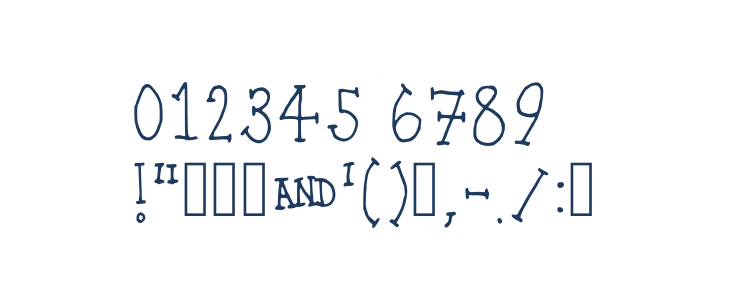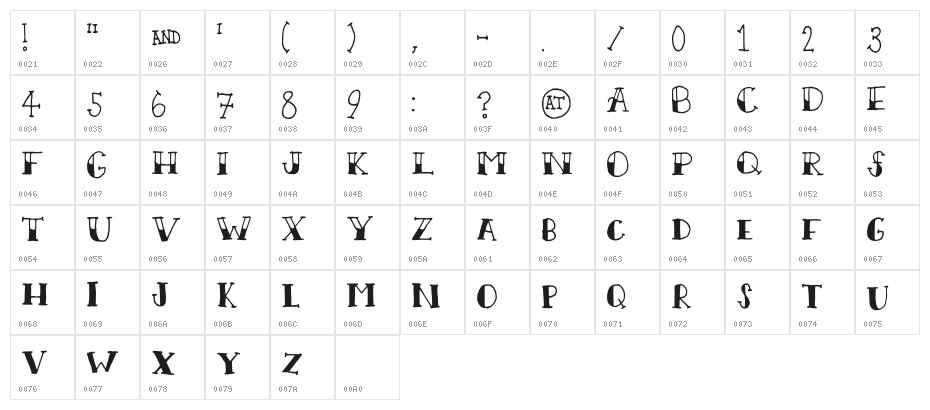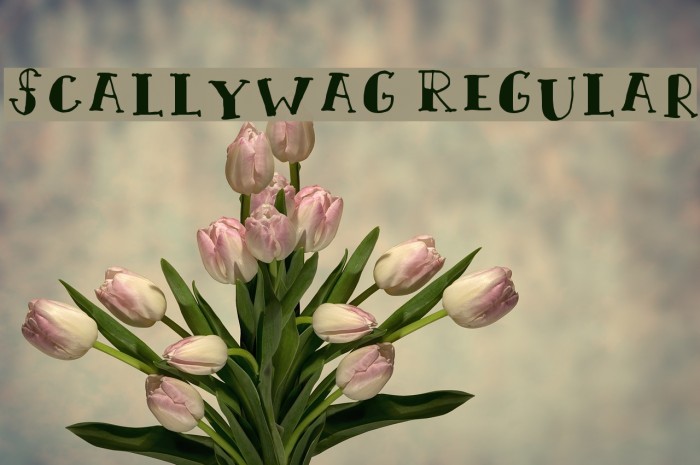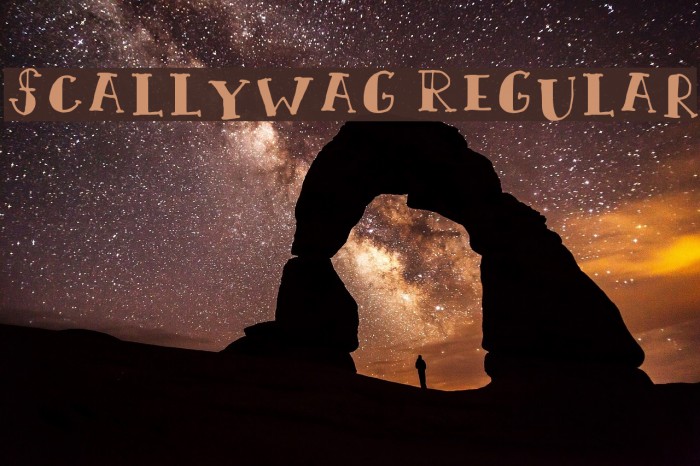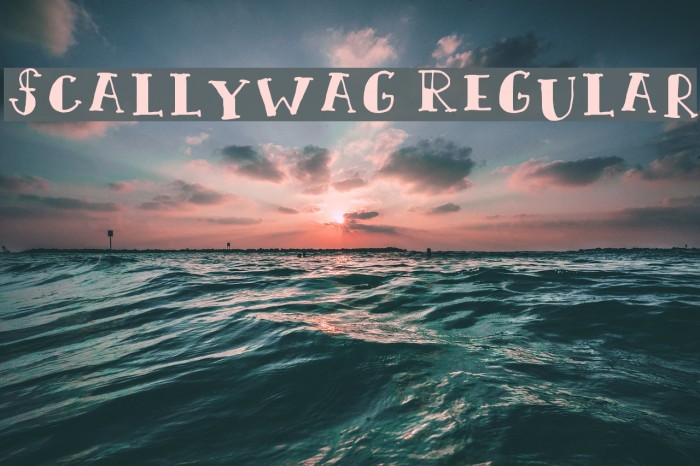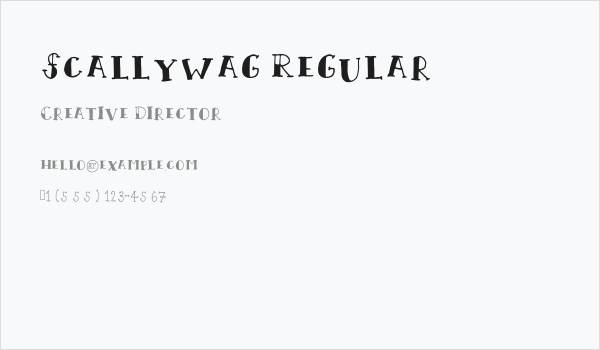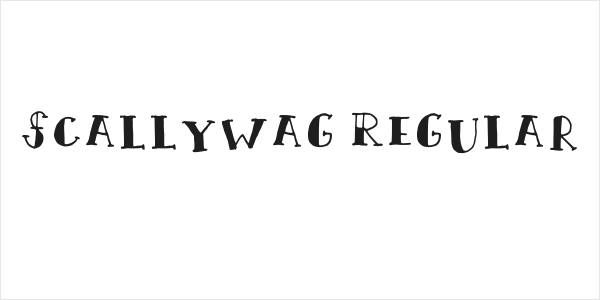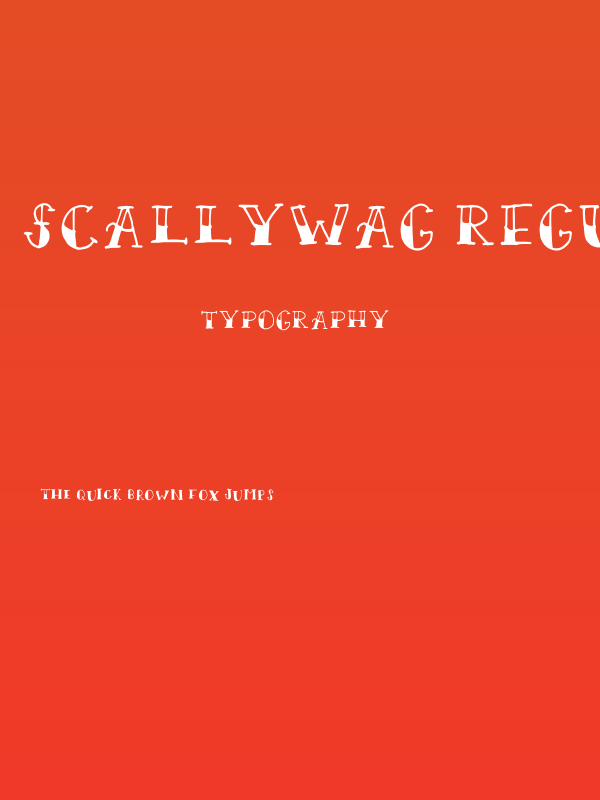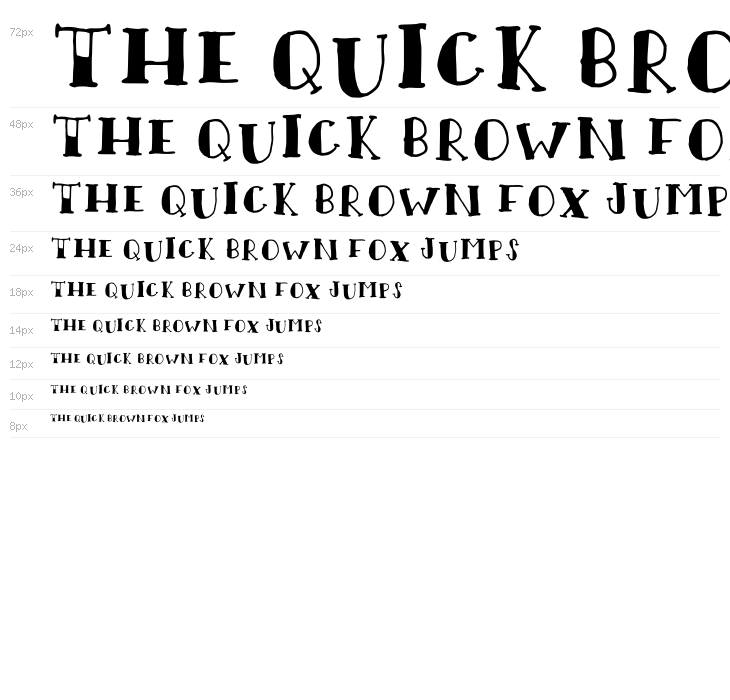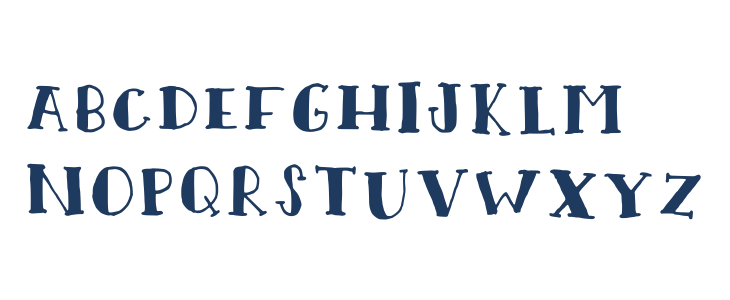
Scallywag Regular Font
Scallywag Regular Description
This font exudes a playful and whimsical character, with its uneven strokes and quirky serifs. Each letter has a hand-drawn feel, giving it a unique and artistic appearance. The uppercase letters are bold and slightly irregular, while the lowercase letters maintain a consistent style with a touch of eccentricity. Numbers and special characters follow the same playful design, making the font versatile for creative projects. The overall look is reminiscent of pirate-themed or adventure-inspired designs, perfect for adding a touch of fun and personality to any text.
Overall StyleWhimsical, Playful